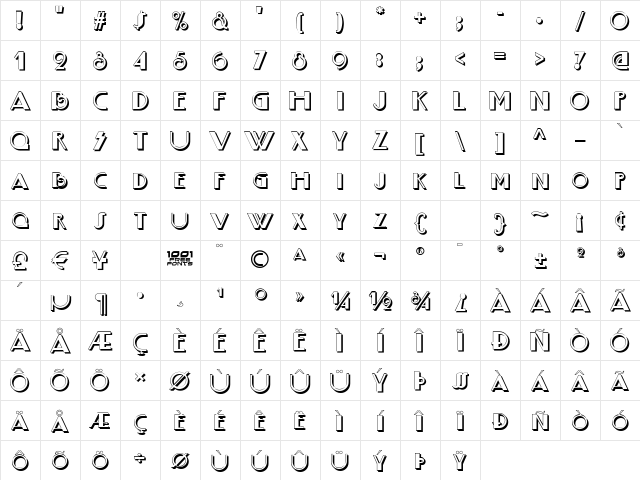
Boogie Nights ShadowNF is built around its visual character rather than neutral utility - its distinctive forms are designed to make an impression at display sizes.
Font Pairing: Pair with a clean neutral sans-serif for body copy to let Boogie Nights ShadowNF's character lead without overwhelming the composition.
Pro Tip: Use Boogie Nights ShadowNF exclusively at display sizes - it was designed to be seen, not read at length. Let a neutral companion handle body copy.